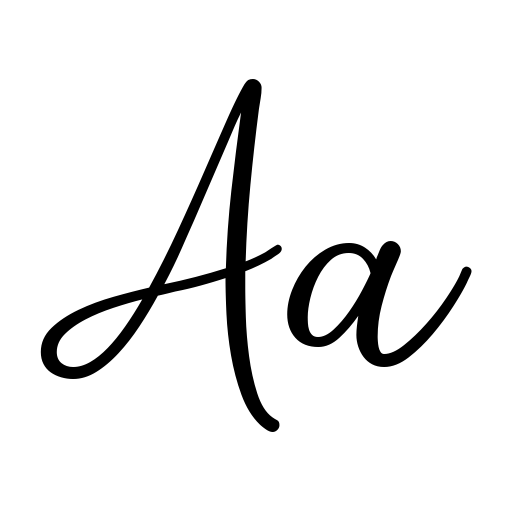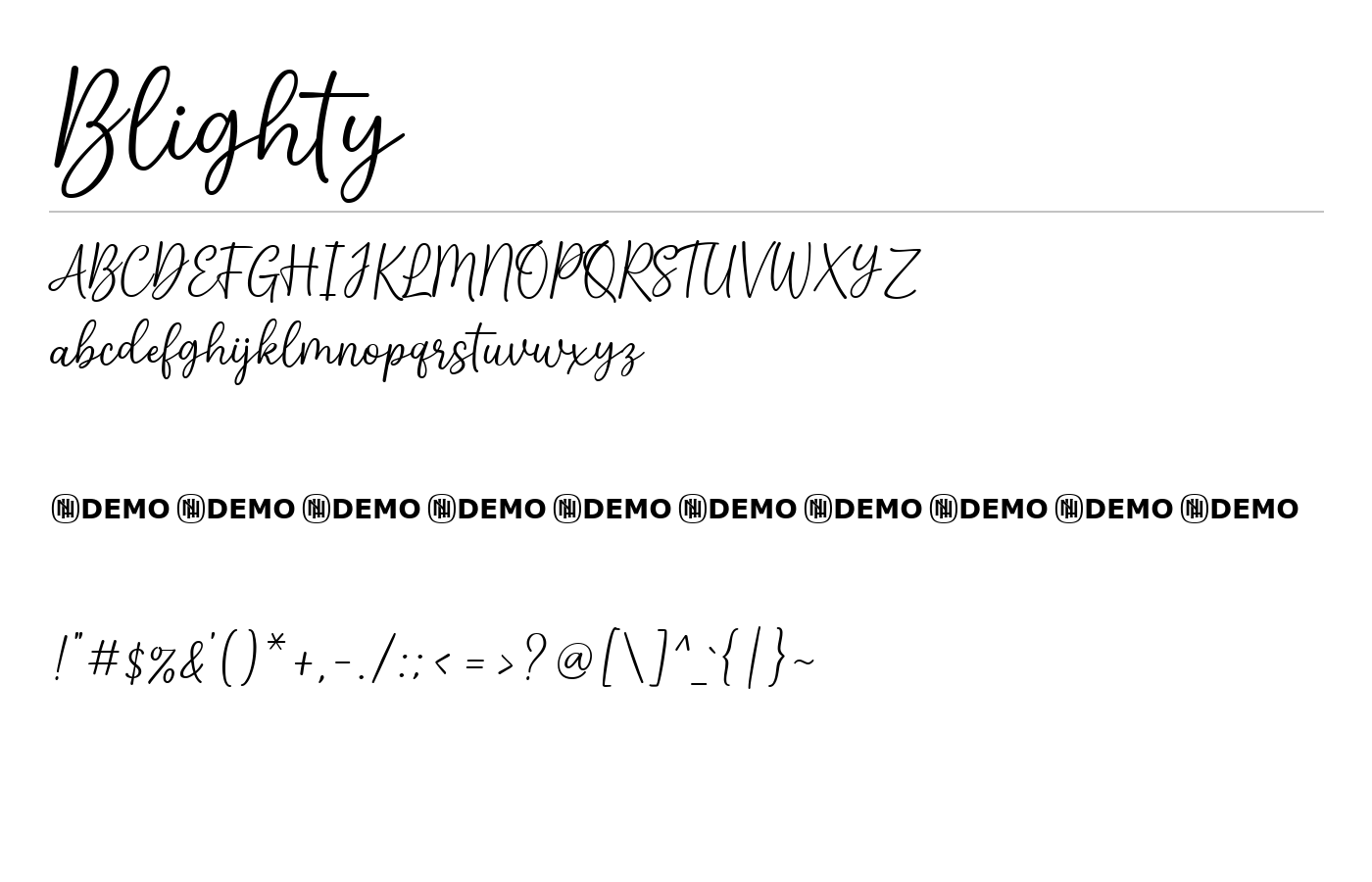
Blighty is a delicate, handwritten script font with elegant, flowing strokes that create a light and airy feel. Its thin, slightly irregular lines and natural cursive style make it ideal for warm, personal, and creative designs such as invitations, branding, and lifestyle content. This font works best for projects seeking a soft, friendly, and approachable look with a touch of sophistication.
Blighty Font
About Blighty Font